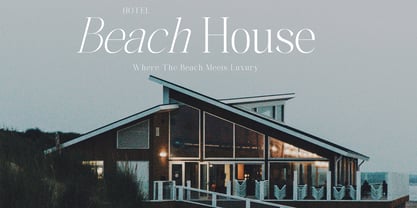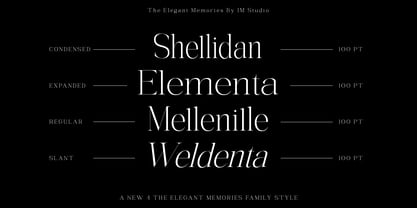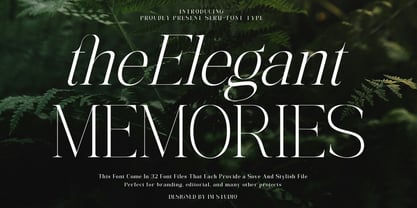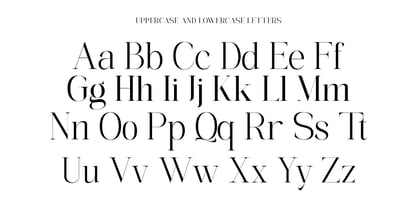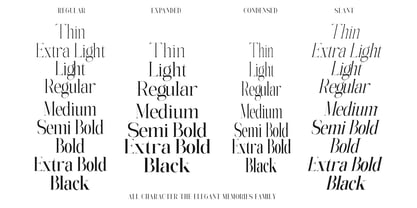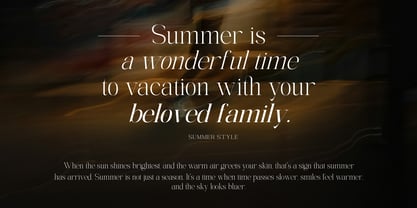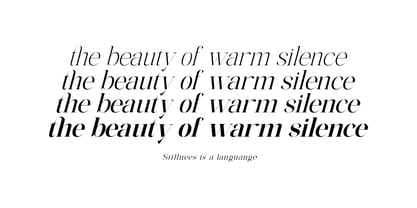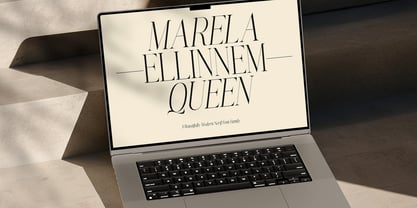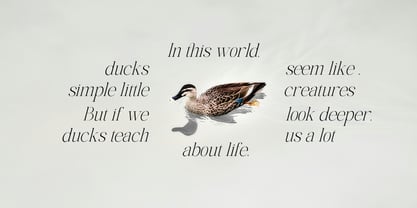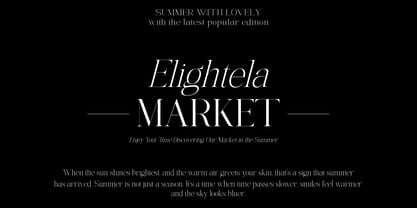
The Elegant Memories
by IM Studio
The The Elegant Memories Font Family was designed by Ikhsan Maulana and published by IM Studio. The Elegant Memories contains 32 styles and family package options.
The Elegant Memories is a serif typeface family that combines modern proportions with a touch of classic elegance. With a generous x-height and compact ascenders and descenders, this typeface has a strong character without sacrificing readability. Designed for flexibility, The Elegant Memories is an ideal choice for a variety of design needs such as branding, editorial, posters, logos, headlines, blogs, and more.
This font family comes complete with uppercase and lowercase letters, numbers, punctuation, and multilingual support. The Elegant Memories offers 32 font files that give designers full control and freedom to create in various design applications.